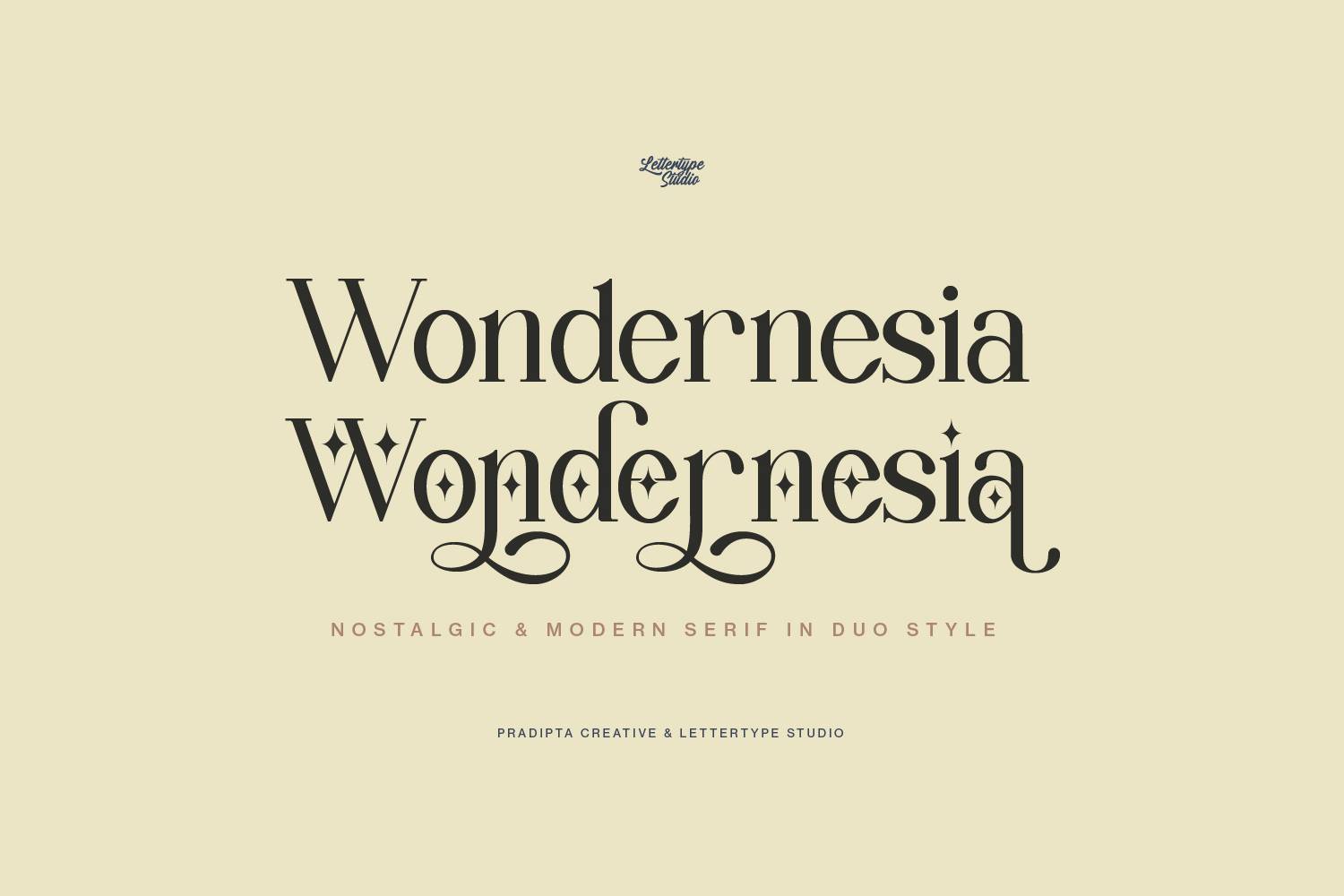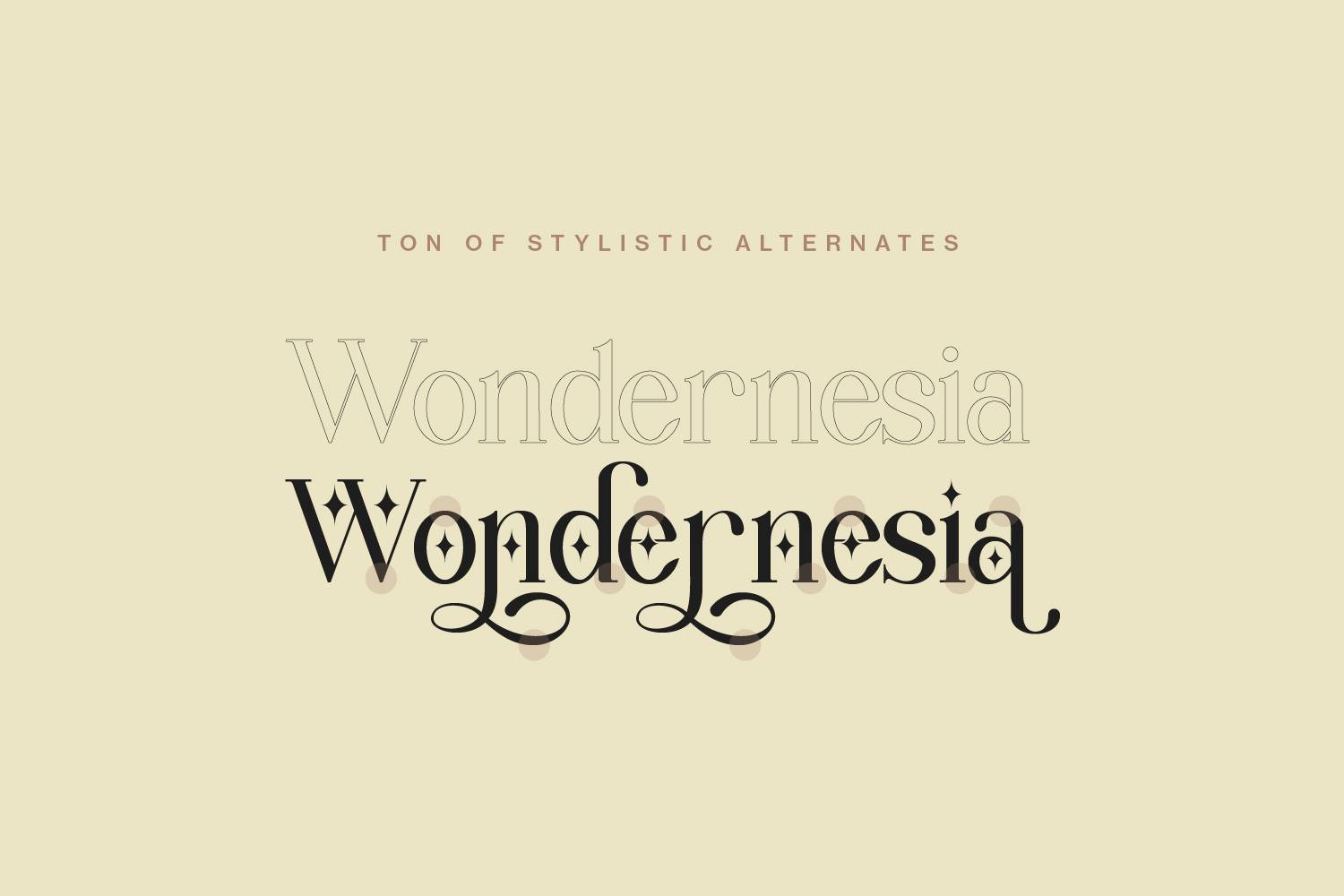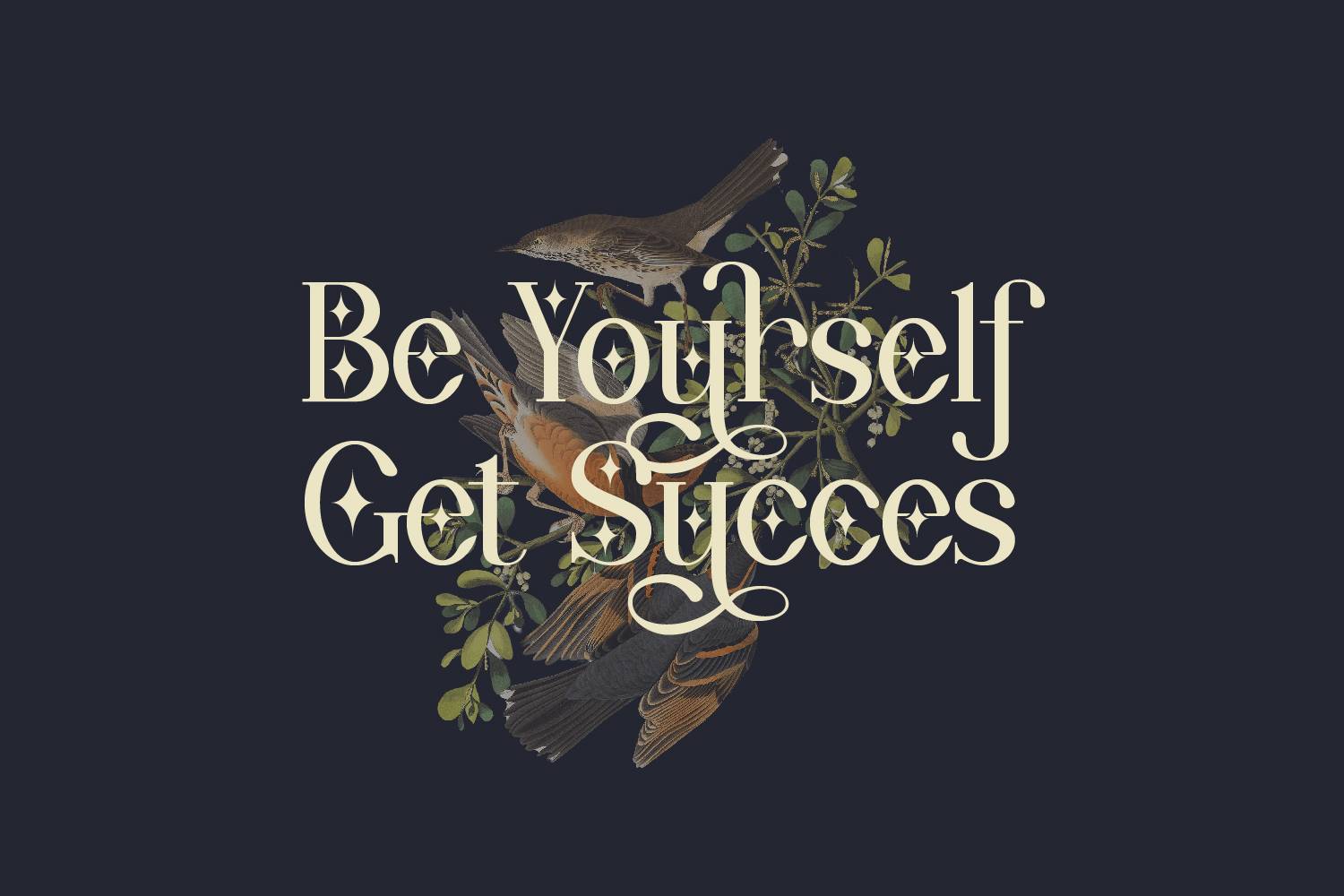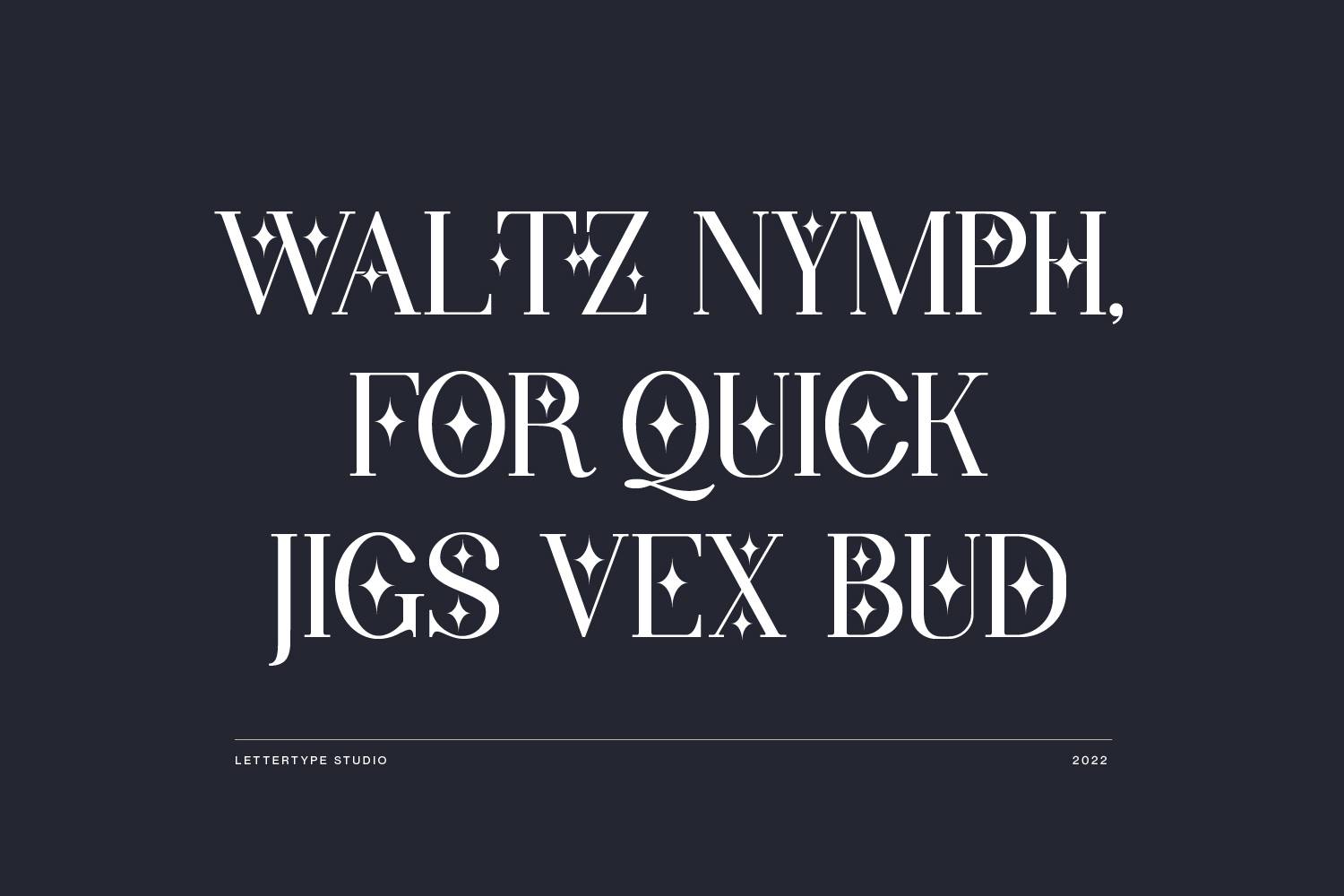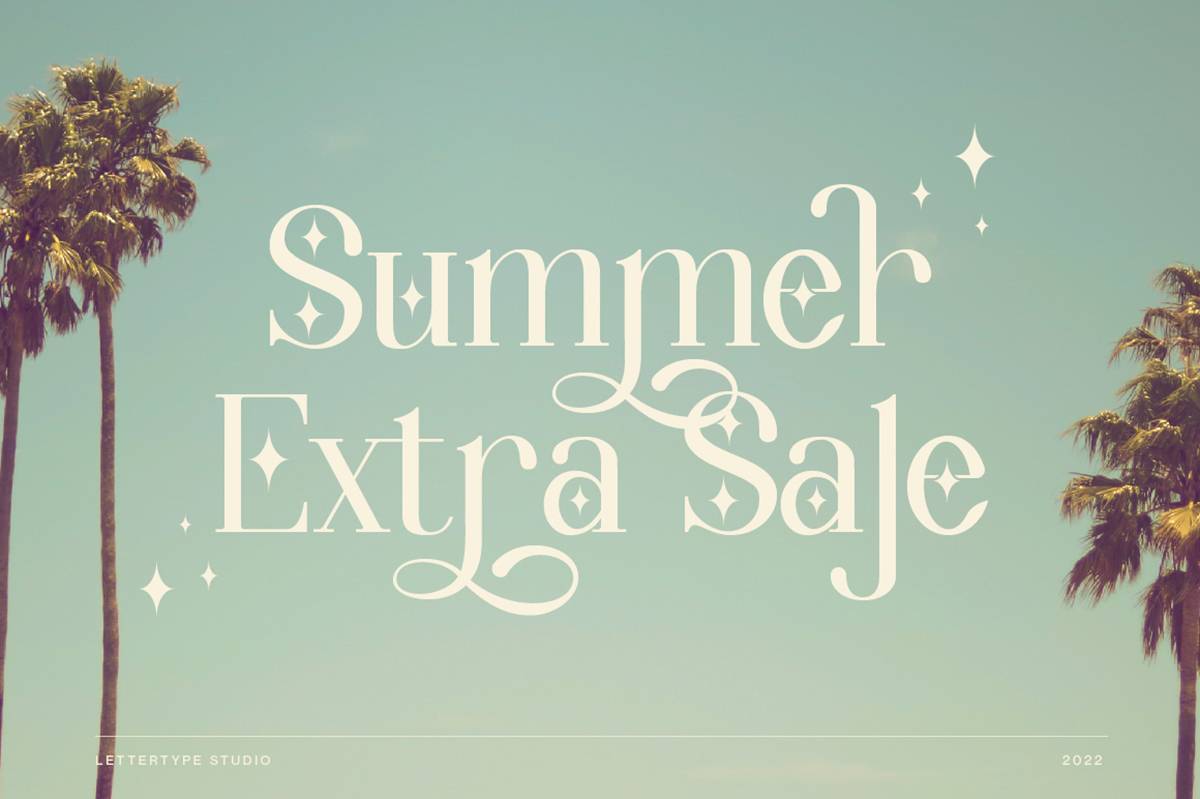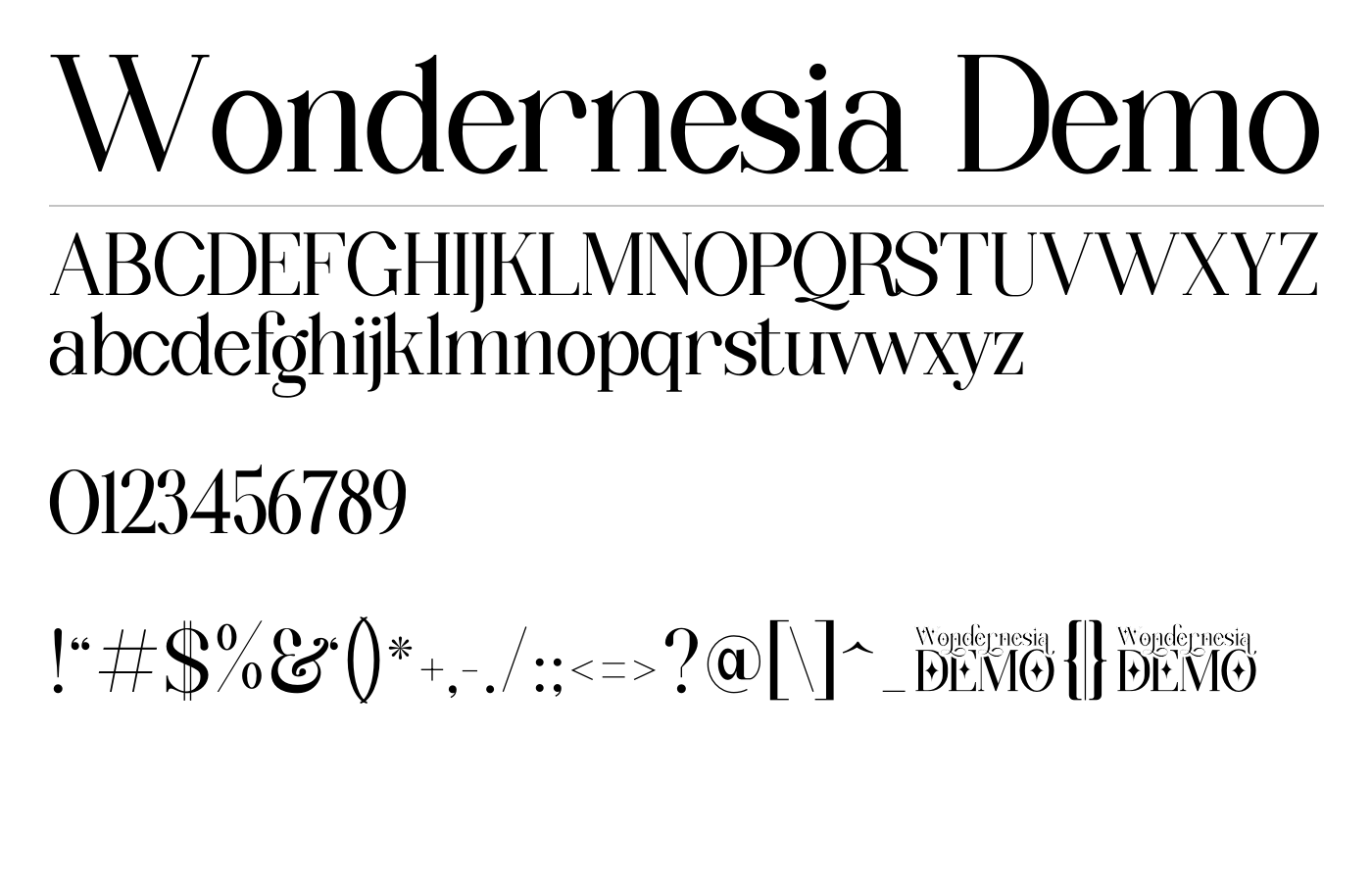
Wondernesia Nostalgic is a refined serif font with a classic, elegant character reminiscent of vintage typography. Its high contrast between thick and thin strokes, sharp serifs, and distinctive letterforms create a sophisticated and timeless feel, making it ideal for luxury branding, editorial headlines, and stylish print design. This font brings a touch of nostalgia and grace to any project, blending tradition with a modern flair.
Wondernesia Nostalgic Font
About Wondernesia Nostalgic Font
| Font family | Wondernesia Nostalgic Font |
| Designer | Diki Pradipta Tri Atmojo |